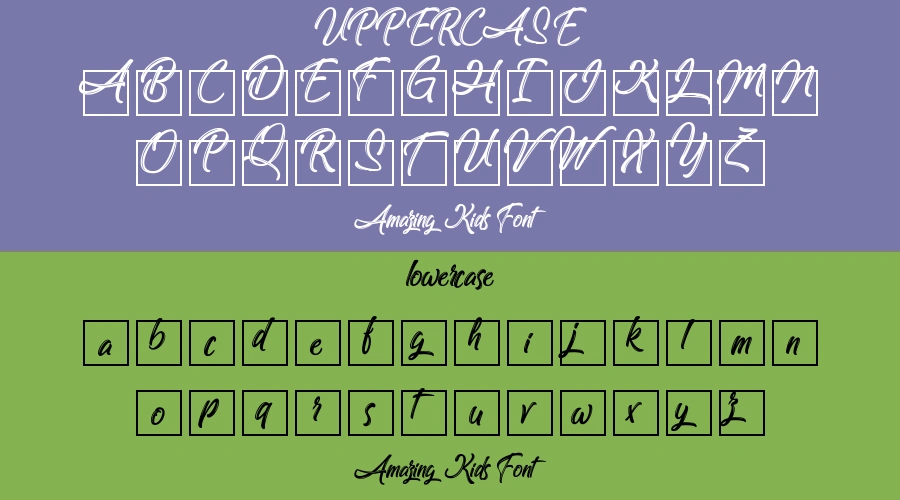
About Amazing Kids Font
Amazing Kids Font stands out for its distinctive combination of contextual forms and optical balance. Ideal for social media content, it provides the adaptability and application safety that professional projects demand. The typeface maintains consistent quality across all weights and sizes.
Key features include refined hairline details and practical decorative sets, enhancing typographic expression. In sidebars applications, Amazing Kids Font demonstrates exceptional reproduction fidelity. The bowl shape and cultural references contribute to its distinctive character and professional appeal.